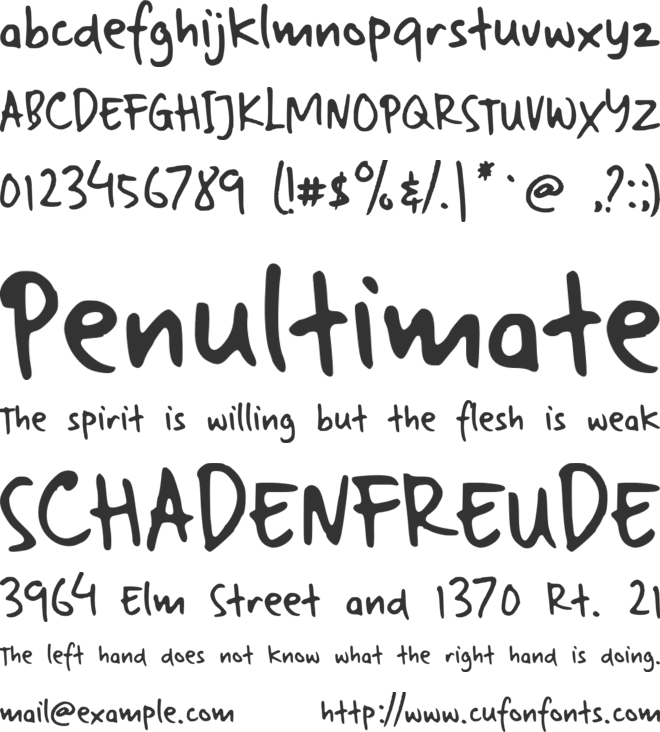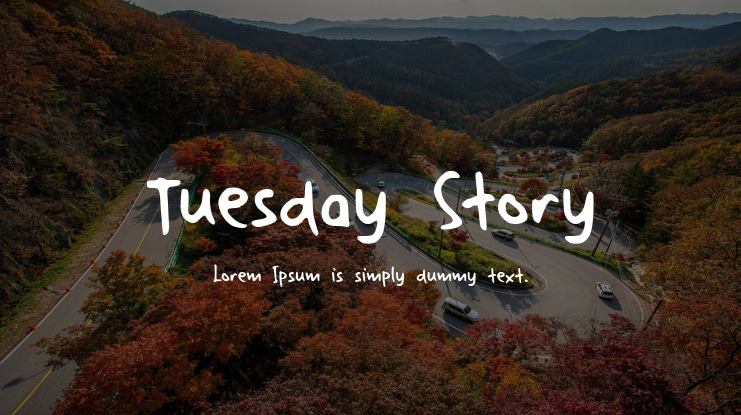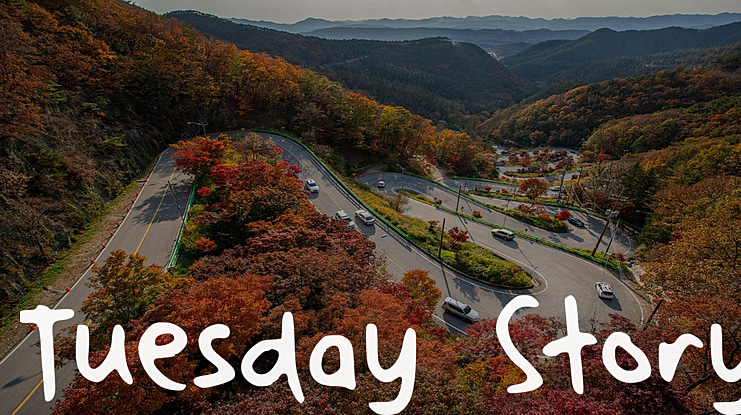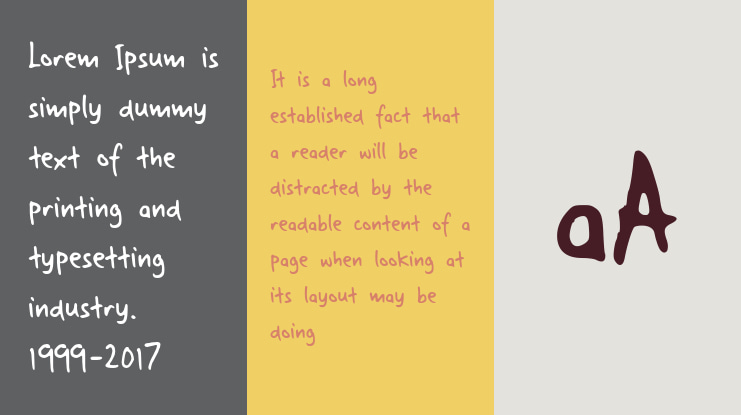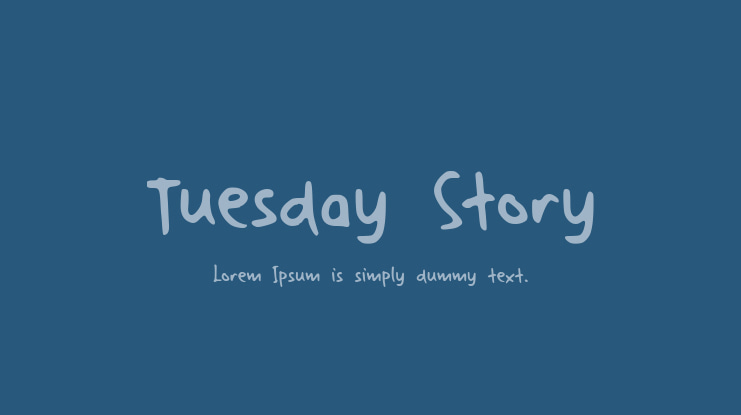
Tuesday Story Font
There are 4 variations of the lowercases and they are set to automatically cycles.
Type same words repeatedly and you'll get some different results. Feel free to use this font for any commercial or personal use.